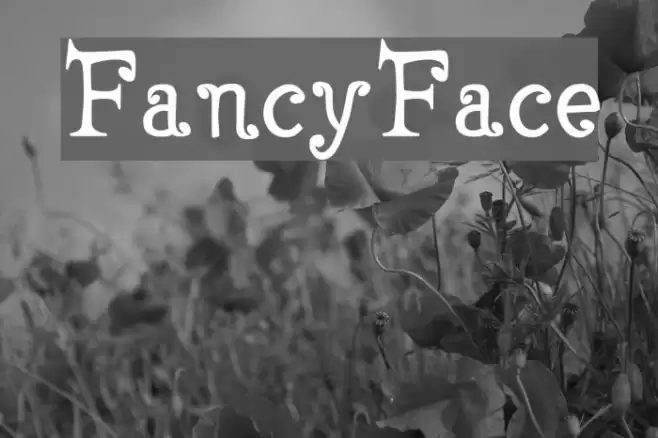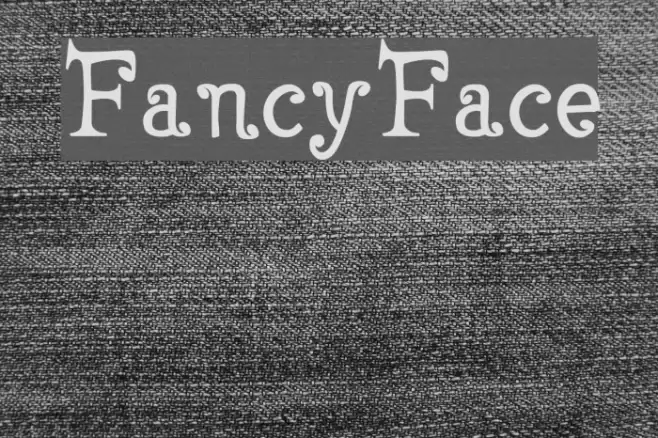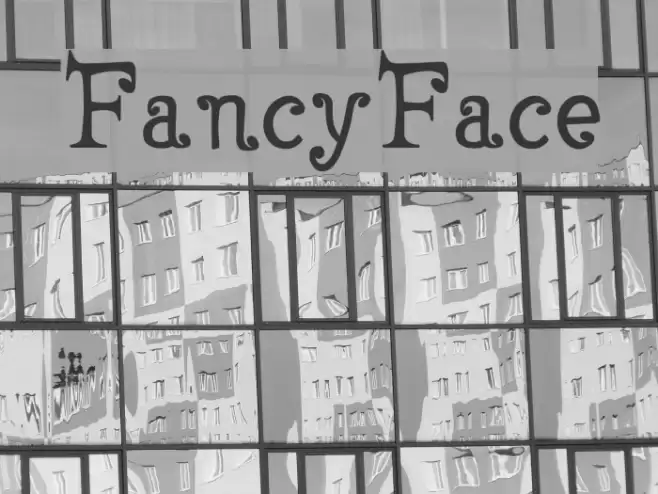
FancyFace Font
FancyFace Description
This font features a whimsical and playful design, characterized by its decorative elements and unique flair. The uppercase letters exhibit a bold presence with exaggerated serifs and curvy strokes that add a sense of movement and creativity. The lowercase letters maintain a consistent style, with rounded forms and playful loops that enhance the font's charm. The overall appearance is lively and engaging, making it suitable for projects that require a touch of fun and personality. The font's distinctive style is further emphasized by its medium contrast in stroke thickness, providing a balanced yet dynamic look.
| Use Case | Logos, Headlines, Posters |
| Proposed Projects | Ideal for children's books, playful branding, party invitations, and creative posters. |